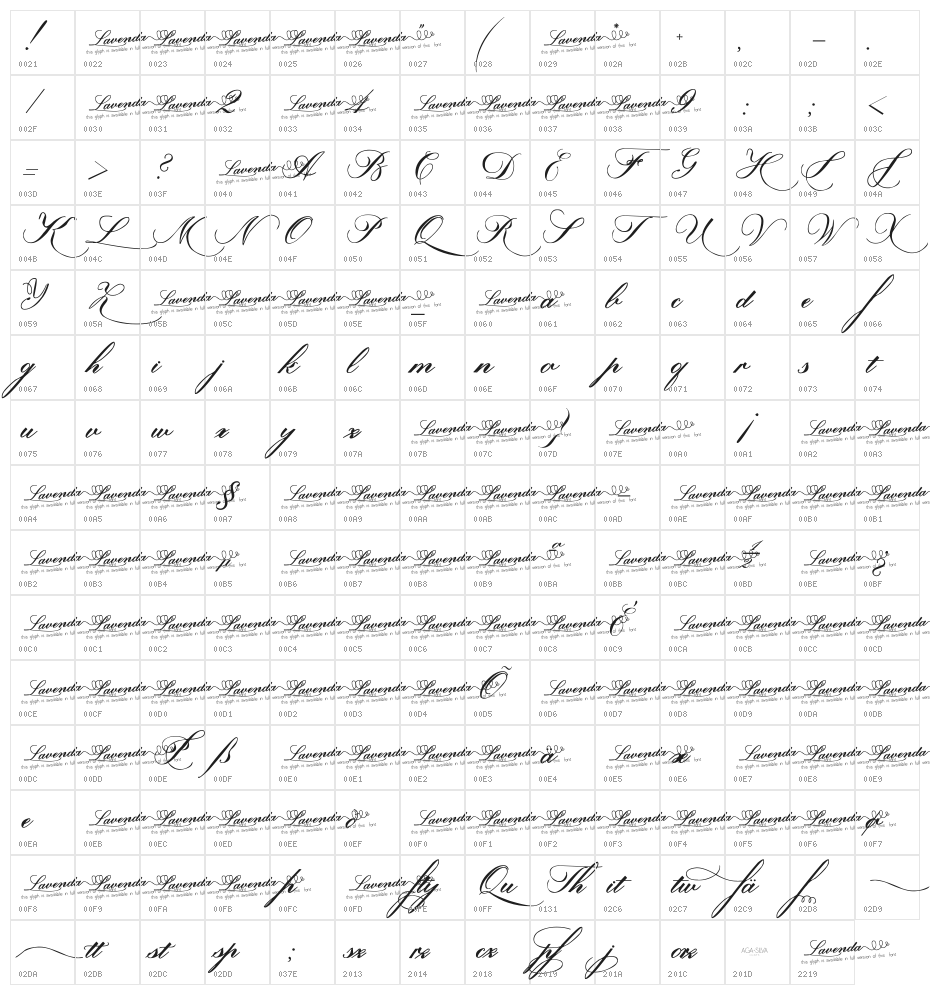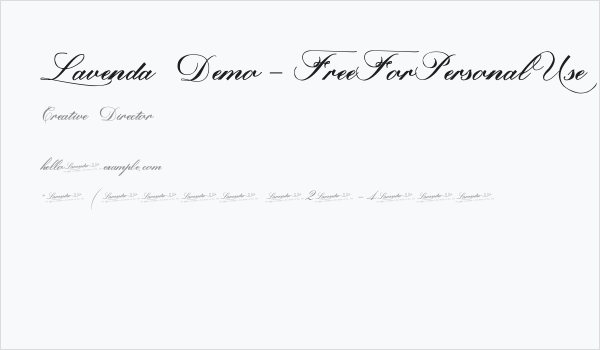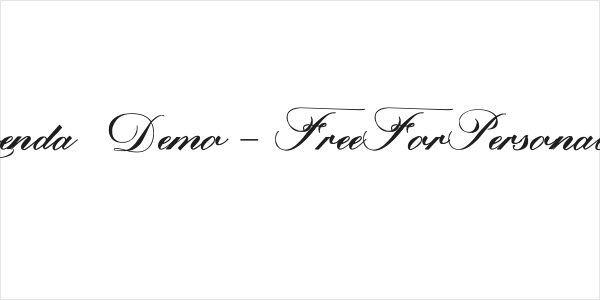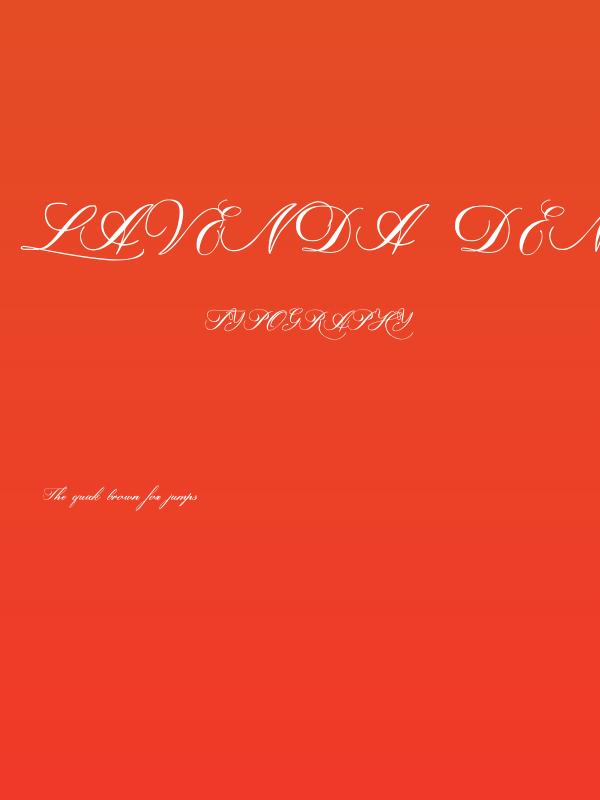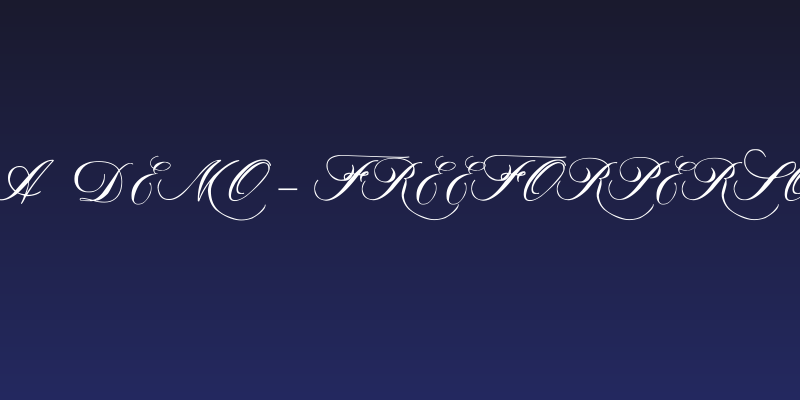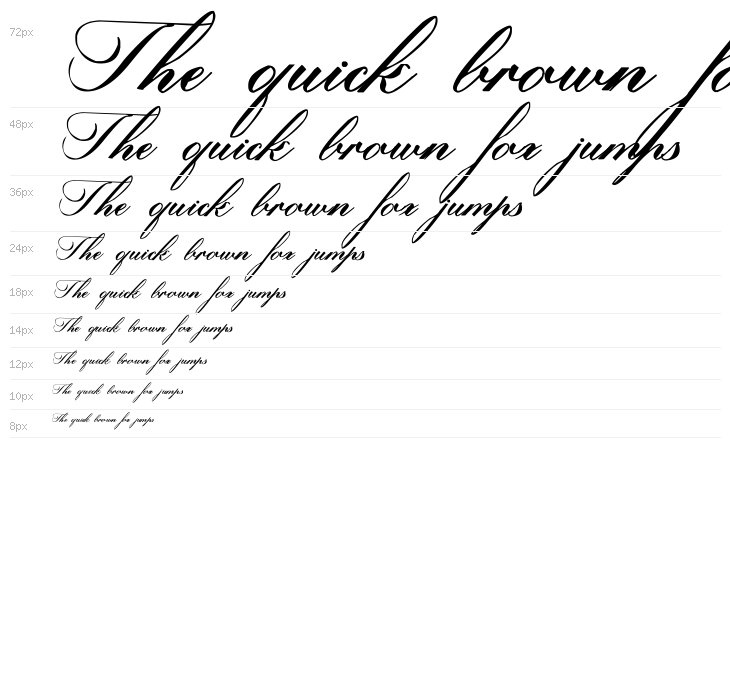
Lavenda Demo-FreeForPersonalUse Font
Lavenda Demo-FreeForPersonalUse Description
This elegant script font features flowing, interconnected letters with ornate swashes and flourishes. The uppercase letters are particularly decorative, with extended loops and curves that give a sense of movement and grace. The lowercase letters maintain a more consistent baseline, enhancing readability while still retaining a stylish flair. The font's design is reminiscent of classic calligraphy, making it suitable for formal and sophisticated applications. Its intricate details and high contrast between thick and thin strokes add to its luxurious appearance, making it ideal for invitations, branding, and other high-end design projects.
| Proposed Projects | Ideal for wedding invitations, luxury branding, greeting cards, and elegant packaging. |